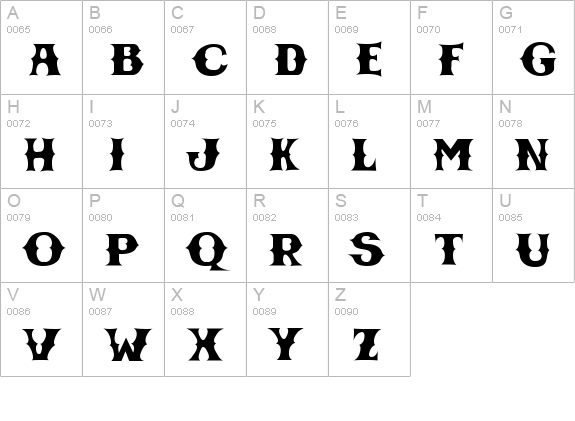
CBGBFontSolid Font Details
CBGBFontSolid is a dynamic and eye-catching font that exudes a bold and edgy style. Its solid and well-defined characters make a striking impact, perfect for creating attention-grabbing designs. Whether you are looking to add an urban flair to your project or make a statement with your typography, CBGBFontSolid delivers a powerful visual presence. What makes CBGBFontSolid even more appealing is that it is available for free download at FontsMarket.com. This means you can easily access this unique font and incorporate it into your designs without any cost. With its versatility and modern aesthetic, CBGBFontSolid is a must-have addition to your font collection.